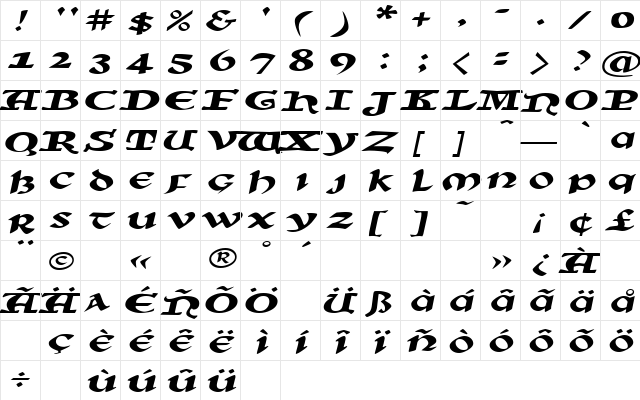
SunSplashExtended Italic
Design Context for SunSplashExtended Typeface
SunSplashExtended is a composed and adaptable typeface that performs quietly and consistently across a wide range of design contexts. The dynamic lean of this cut emphasises speed and emphasis in any layout.
Pro Tip: Use SunSplashExtended for emphasis, pull quotes, and subheadings where its slanted energy can add rhythm to the layout.